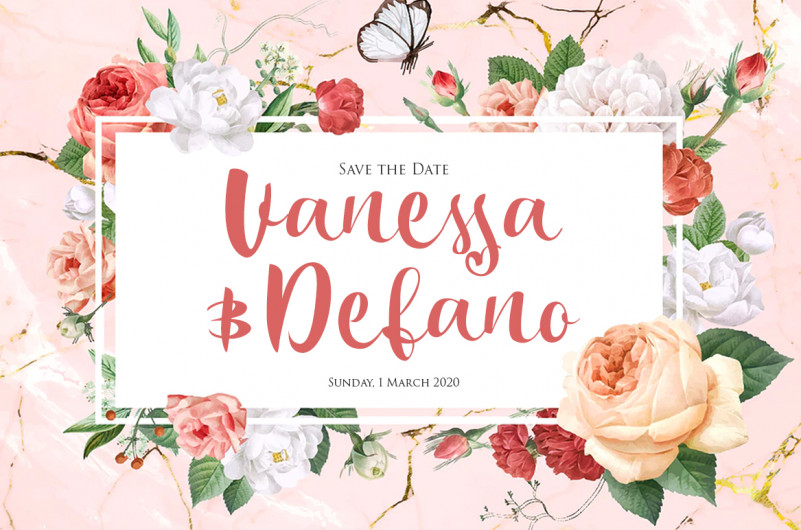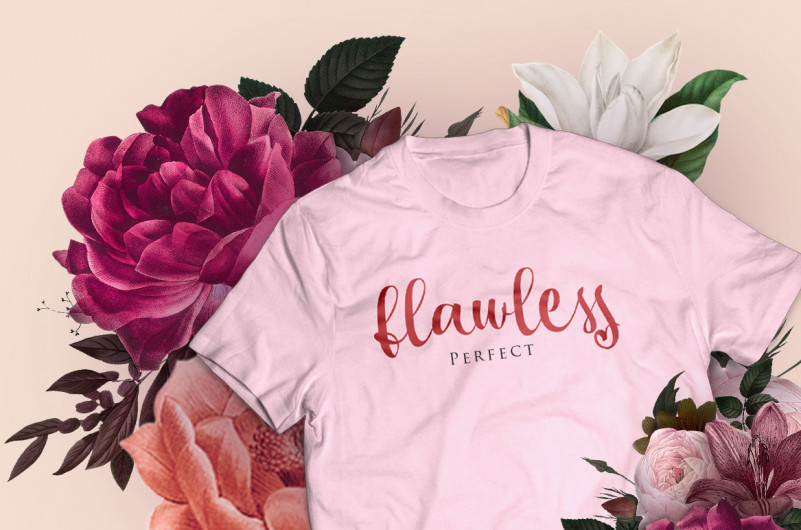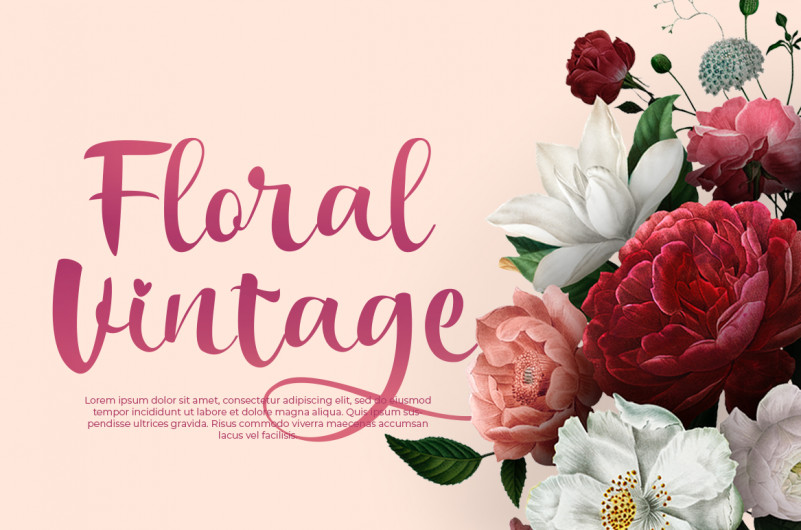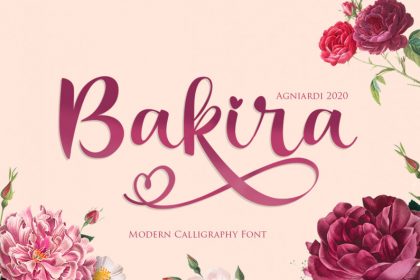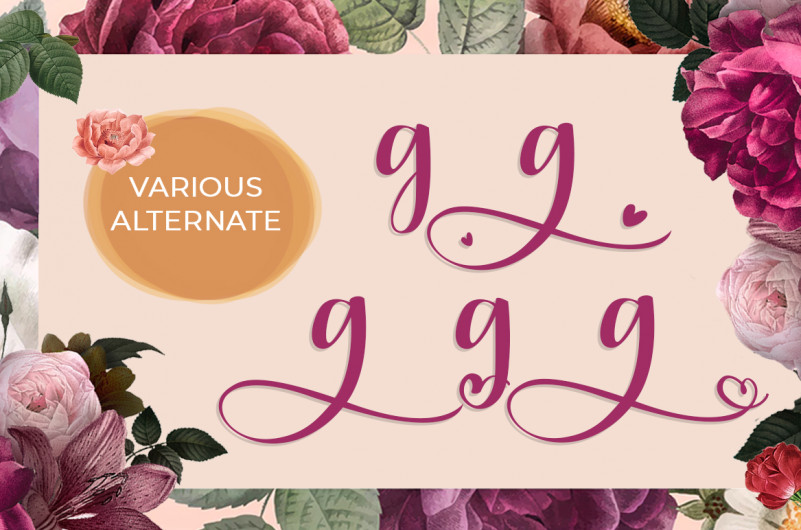
Bakira – Modern Calligraphy Font
Bakira – Modern Calligraphy Font – A script font with a smooth handwritten style. Comes with 215 glyphs. Bakira is perfect for branding projects, homeware designs, product packaging, use in name card, invitation cards, etc. Simply as a stylish text overlay to any background image or anything requiring a sprinkle of elegance.